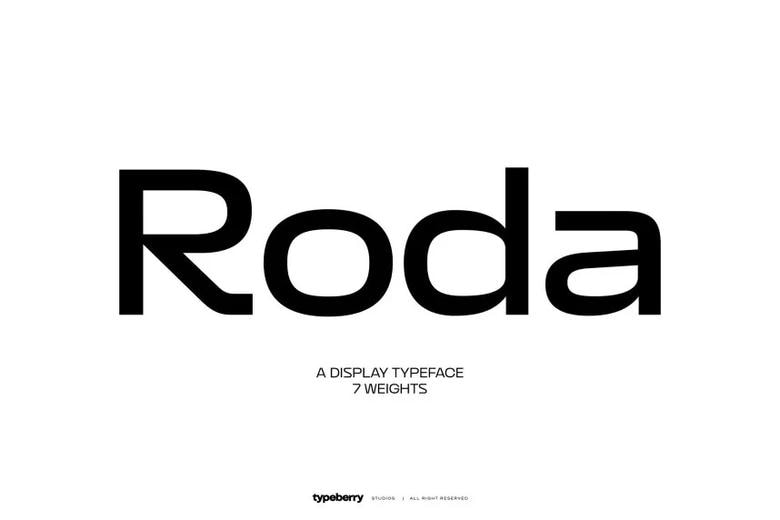
Roda Sans Font
Roda Sans Font is a modern display sans serif with a futuristic style and simple geometric shapes. Its smooth curves, open spaces, and balanced design make it look fresh and versatile.